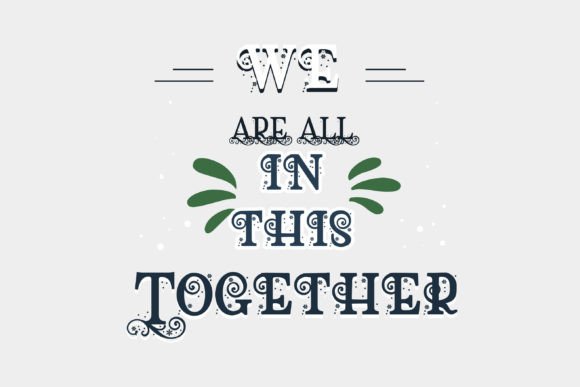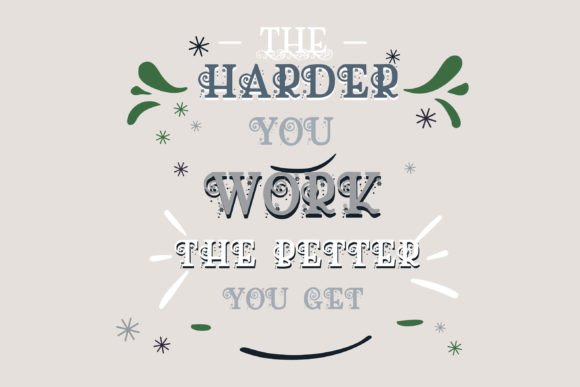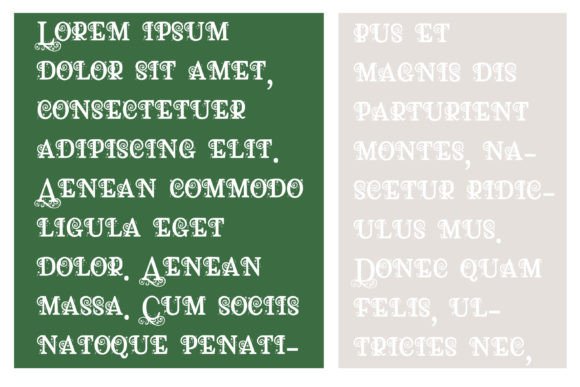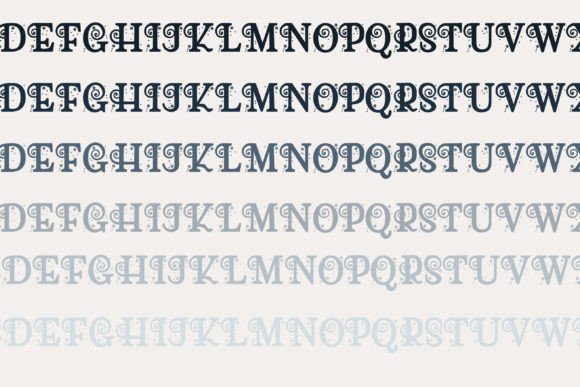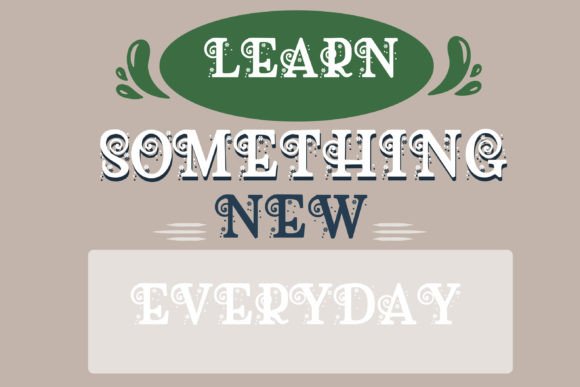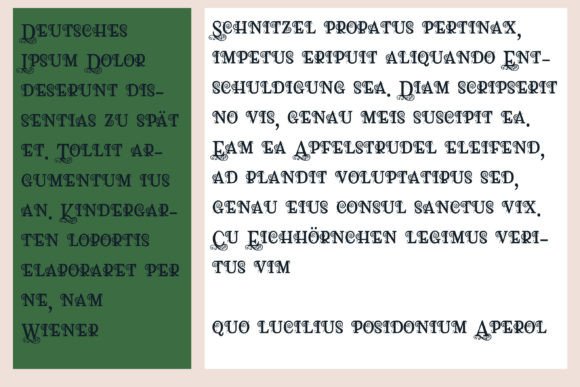
Introducing Farmer’s Frost Font: A Charming Handwritten Serif Font with a Winter Wonderland Twist
Are you looking for a unique and captivating font to add a touch of personality to your designs? Look no further than Farmer’s Frost Font, a beautiful handwritten serif font that combines elegant flourishes with delicate snowflakes. This stunning font is perfect for designers and crafters seeking to create eye-catching invitations, greeting cards, and other creative projects that require a personal touch.
A hand-crafted font, also known as a handwritten font, is a typeface that mimics the look of handwriting. Each letter and character is carefully designed to resemble the imperfections and uniqueness of handwritten text. Hand-crafted fonts can range from formal and elegant to informal and playful, making them versatile for various design applications.
The Characteristics of Farmer’s Frost Font
Farmer’s Frost Font boasts an array of distinctive features that set it apart from other fonts. The serif font sports flourishes and snowflakes throughout, giving it a whimsical and festive feel. The hand-crafted design ensures that each letter and character has a unique, human touch that adds warmth and personality to your designs.
Uses for Handwritten Fonts like Farmer’s Frost
Handwritten fonts like Farmer’s Frost are incredibly versatile and can be used for a wide range of design projects, including:
- Invitations: Whether it’s a wedding invitation, birthday party invite, or holiday gathering, a handwritten font like Farmer’s Frost can add a touch of elegance and sophistication.
- Greeting cards: Handwritten fonts are perfect for creating personalized greeting cards for special occasions, such as Christmas, Valentine’s Day, or Mother’s Day.
- Stationery: Add a personal touch to your stationery, such as notebooks, journals, or letterheads, with a handwritten font like Farmer’s Frost.
- Digital designs: Use Farmer’s Frost Font to create eye-catching social media graphics, blog posts, or website headers that require a personal touch.
The Benefits of Using Handwritten Fonts
Handwritten fonts like Farmer’s Frost offer several benefits for designers and crafters, including:
- Uniqueness: Handwritten fonts add a touch of personality and uniqueness to your designs, setting them apart from more traditional fonts.
- Emotional connection: Handwritten fonts can create an emotional connection with your audience, evoking feelings of nostalgia, warmth, and approachability.
- Versatility: Handwritten fonts can be used for both formal and informal design projects, making them a versatile addition to your font library.
Tips for Choosing the Right Handwritten Font
With so many handwritten fonts available, it can be challenging to choose the right one for your project. Here are some tips to consider:
- Consider the tone: Think about the tone you want to convey with your design. Do you want it to be formal and elegant or informal and playful?
- Think about the audience: Consider your target audience and what type of font will resonate with them.
- Check the legibility: Ensure that the font is legible and easy to read, especially for body text.
Farmer’s Frost Font is a charming handwritten serif font that combines elegant flourishes with delicate snowflakes, making it perfect for designers and crafters seeking to add a touch of personality to their designs. With its versatility, uniqueness, and emotional connection, this font is sure to become a favorite in your font library. Whether you’re creating invitations, greeting cards, or digital designs, Farmer’s Frost Font is an excellent choice for adding a personal touch to your projects.